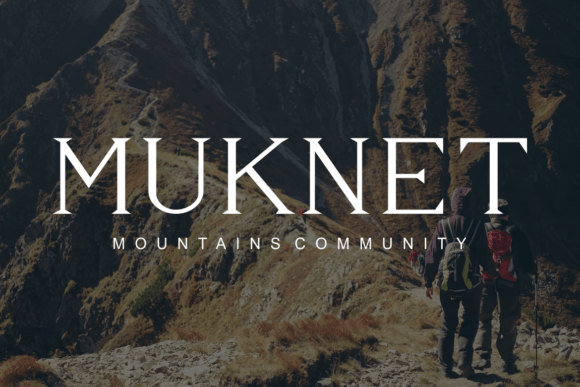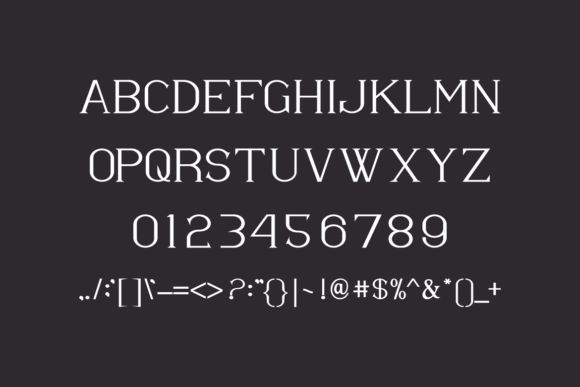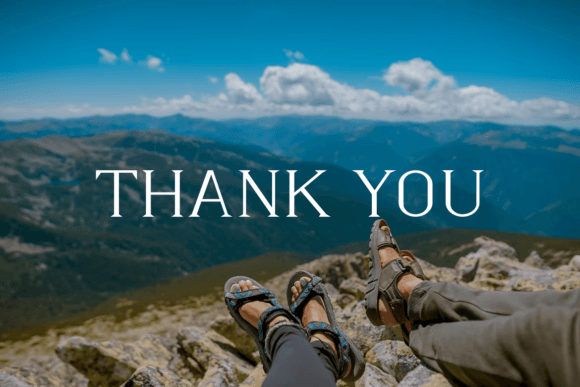
Davena Font: Elevate Your Designs with a Stylish and Attractive Serif Font
Are you looking for a font that can add a touch of elegance and sophistication to your designs? Look no further than Davena Font. Davena, often misspelled as Devena, is a stylish and attractive serif font that has been making waves in the design community. Its clean, thin, and smooth vibe makes it an excellent choice for a wide range of design projects.
What Makes Davena Font Stand Out?
Davena Font boasts a unique combination of characteristics that set it apart from other fonts. Its serif design gives it a classic and timeless look, while its thin and smooth lines add a touch of modernity. The font’s clean design ensures that it remains legible even at small sizes, making it perfect for use in a variety of applications, from digital media to print materials.
Key Features of Davena Font
- Stylish and Attractive: Davena Font’s elegant design makes it perfect for use in high-end designs, such as luxury branding, advertising, and editorial content.
- Clean and Thin: The font’s thin lines give it a sleek and modern look that’s perfect for designs that require a bit of sophistication.
- Smooth Vibe: Davena Font’s smooth lines ensure that it remains legible and easy to read, even at small sizes.
- Serif Design: The font’s serif design gives it a classic and timeless look that’s perfect for use in traditional and digital media.
Uses of Davena Font
Davena Font’s versatility makes it an excellent choice for a wide range of design projects. Here are some of the ways you can use this stylish and attractive serif font:
- Branding and Logo Design: Davena Font’s elegant design makes it perfect for use in luxury branding and logo design.
- Advertising: The font’s clean and thin lines make it an excellent choice for use in advertising, from print ads to digital banners.
- Editorial Content: Davena Font’s smooth and legible design makes it perfect for use in editorial content, such as magazines, newspapers, and blogs.
- Digital Media: The font’s modern and sleek design makes it an excellent choice for use in digital media, from social media graphics to website headers.
Tips for Using Davena Font
To get the most out of Davena Font, here are some tips to keep in mind:
- Use it Sparingly: Davena Font’s elegant design can be overwhelming if used excessively. Use it sparingly to add a touch of sophistication to your designs.
- Pair it with Other Fonts: Davena Font pairs well with other fonts, such as sans-serif fonts. Experiment with different font combinations to find the perfect look for your design.
- Adjust the Size: Davena Font’s thin lines can be difficult to read at small sizes. Adjust the size of the font to ensure that it remains legible.
Davena Font is a stylish and attractive serif font that’s perfect for designers and crafters looking to add a touch of elegance and sophistication to their designs. Its clean, thin, and smooth vibe makes it an excellent choice for a wide range of design projects, from luxury branding to digital media. With its versatility and legibility, Davena Font is sure to be a hit for any design that you want to add it to.